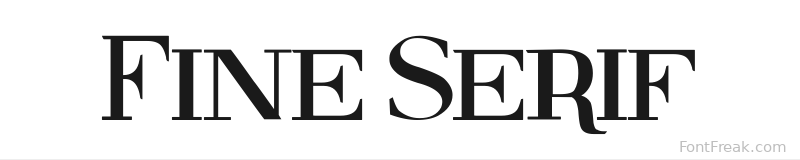
Fine Serif
The Fine Serif font by Galdino Otten Fonts is a sophisticated serif typeface that elegantly blends classic and modern design elements. Released in 2009, this freeware font is characterized by its refined stroke weight and notable contrast, which give it a distinct personality. The gentle curves and sharp serifs create a harmonious balance, making it both readable and visually appealing. The spacing is well-considered, ensuring that each letter stands out without feeling cluttered, which is essential for effective communication in design.
Fine Serif is particularly versatile, making it suitable for a variety of applications. It shines in wedding invitations, where its elegant aesthetics can enhance the romantic feel of the occasion. Additionally, it works beautifully for restaurant menus, adding a touch of sophistication that can elevate the dining experience. Graphic designers will find it useful for branding projects, where a distinguished look is crucial to convey quality and professionalism. Movie posters also benefit from the font's striking presence, attracting attention while maintaining legibility. Content creators looking to add a touch of class to their presentations or online content will appreciate its refined style.
The target audience for Fine Serif includes graphic designers, small business owners, and content creators who seek a typeface that embodies elegance and professionalism. Its timeless design ensures that it remains relevant across various design trends, making it a valuable addition to any designer's toolkit.
In summary, the Fine Serif font stands out due to its unique blend of classic serif characteristics and contemporary flair. Its versatility across multiple design applications, coupled with its elegant aesthetic, makes it an invaluable resource for anyone seeking a refined typeface. For those interested, a Fine Serif font free download is readily available, allowing creatives to elevate their projects effortlessly.